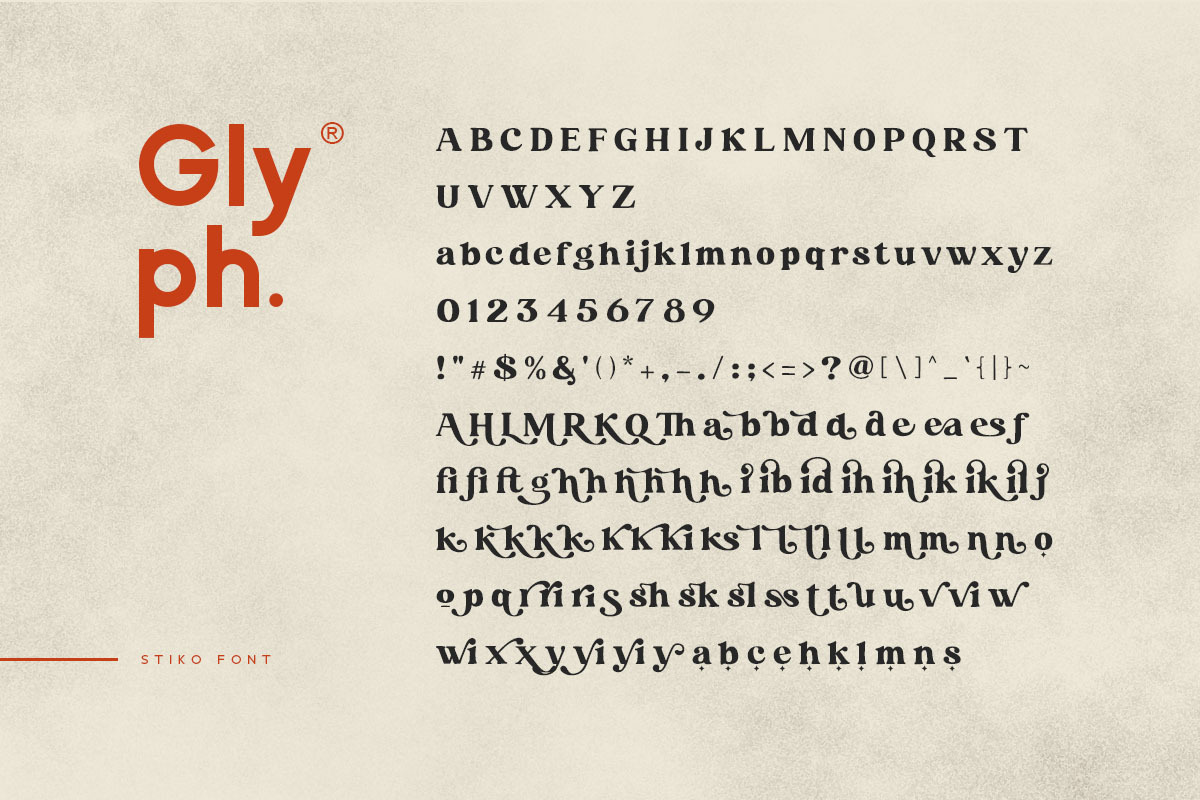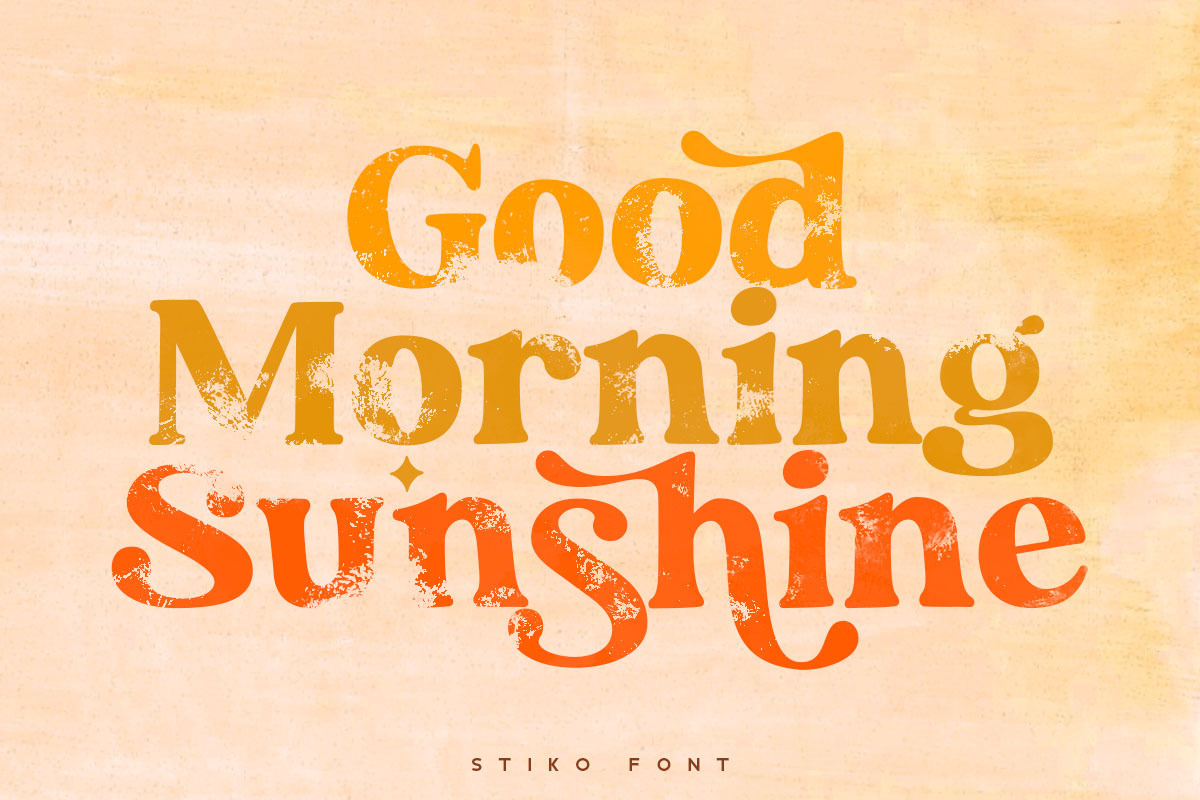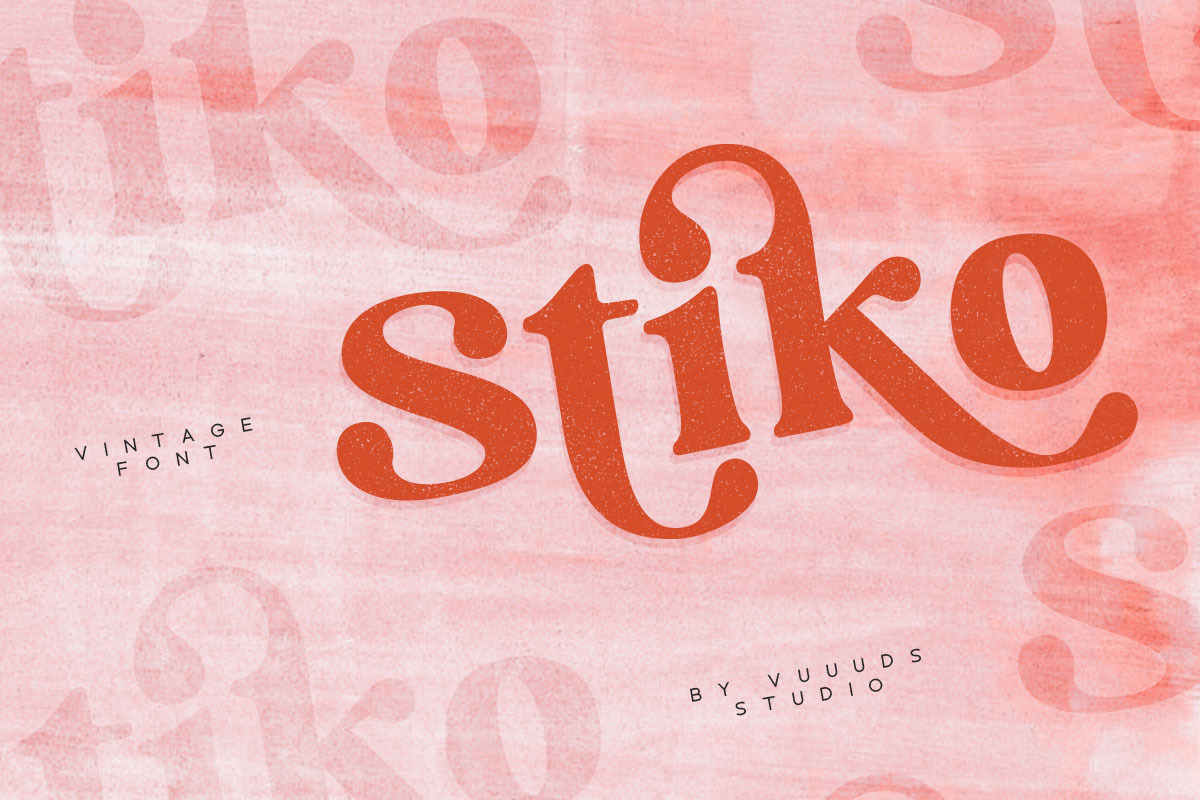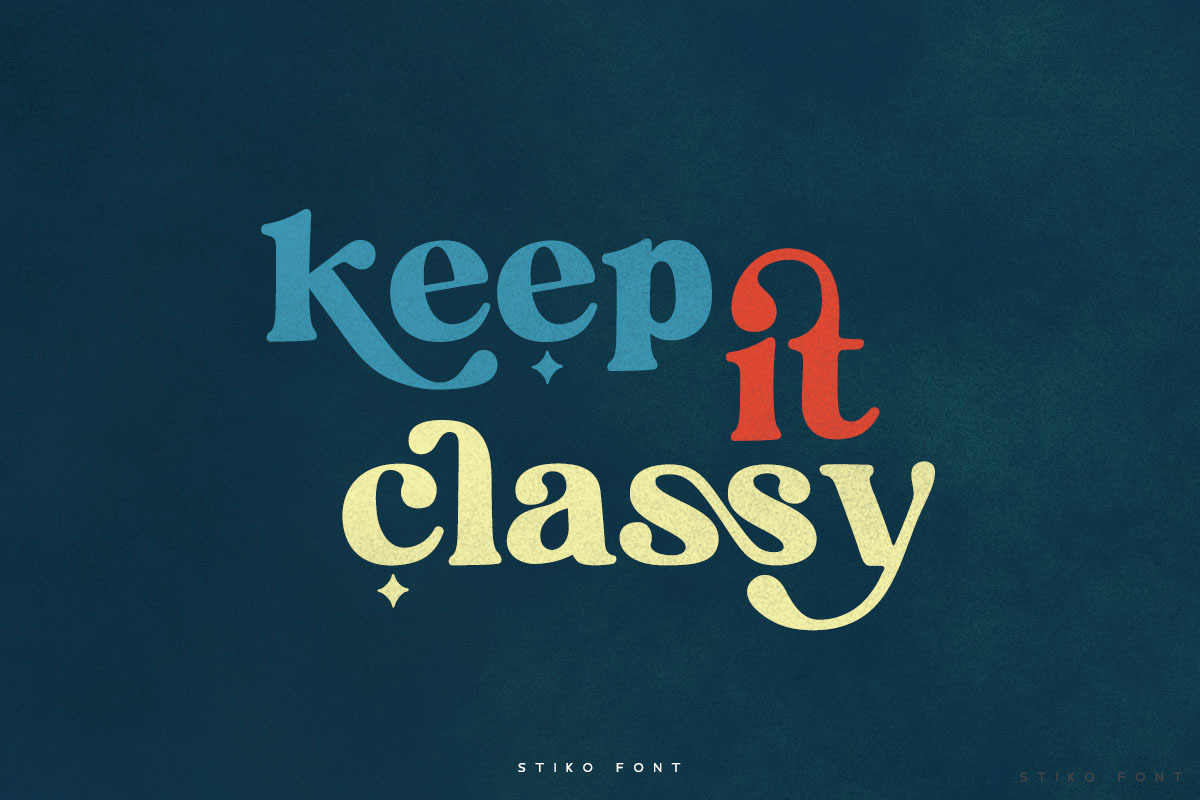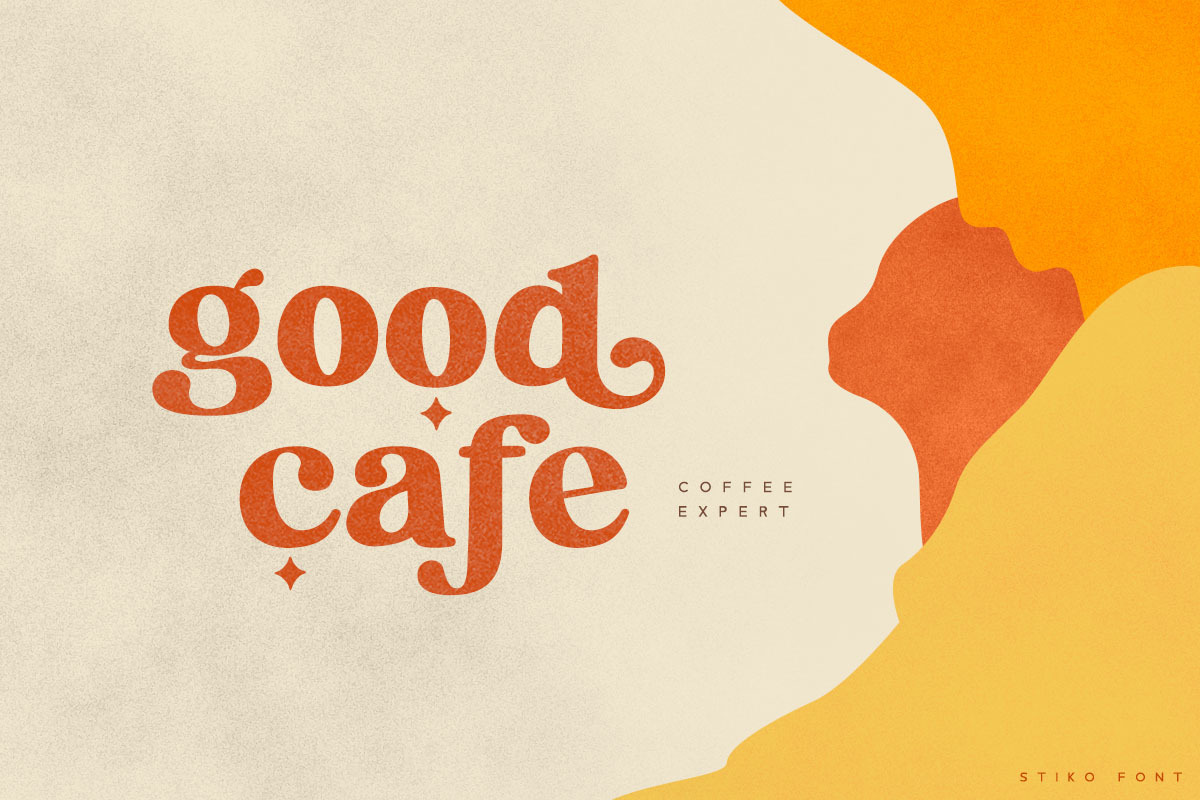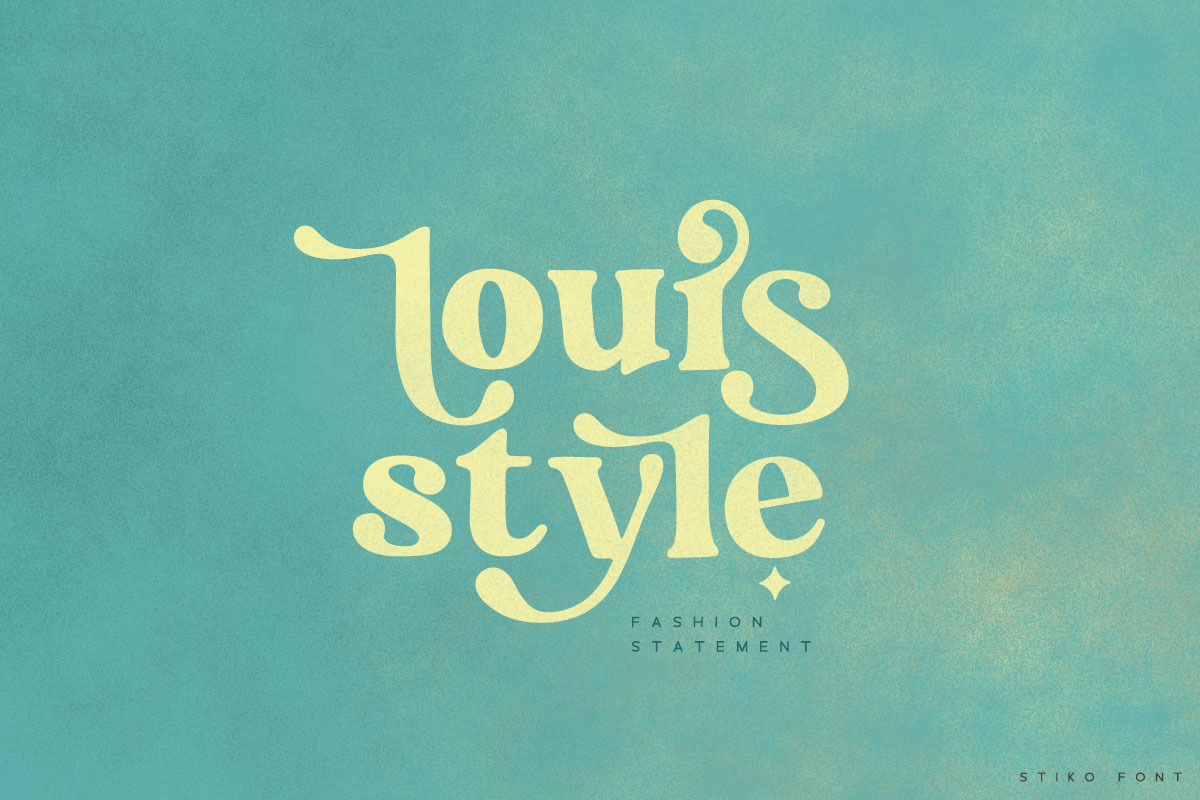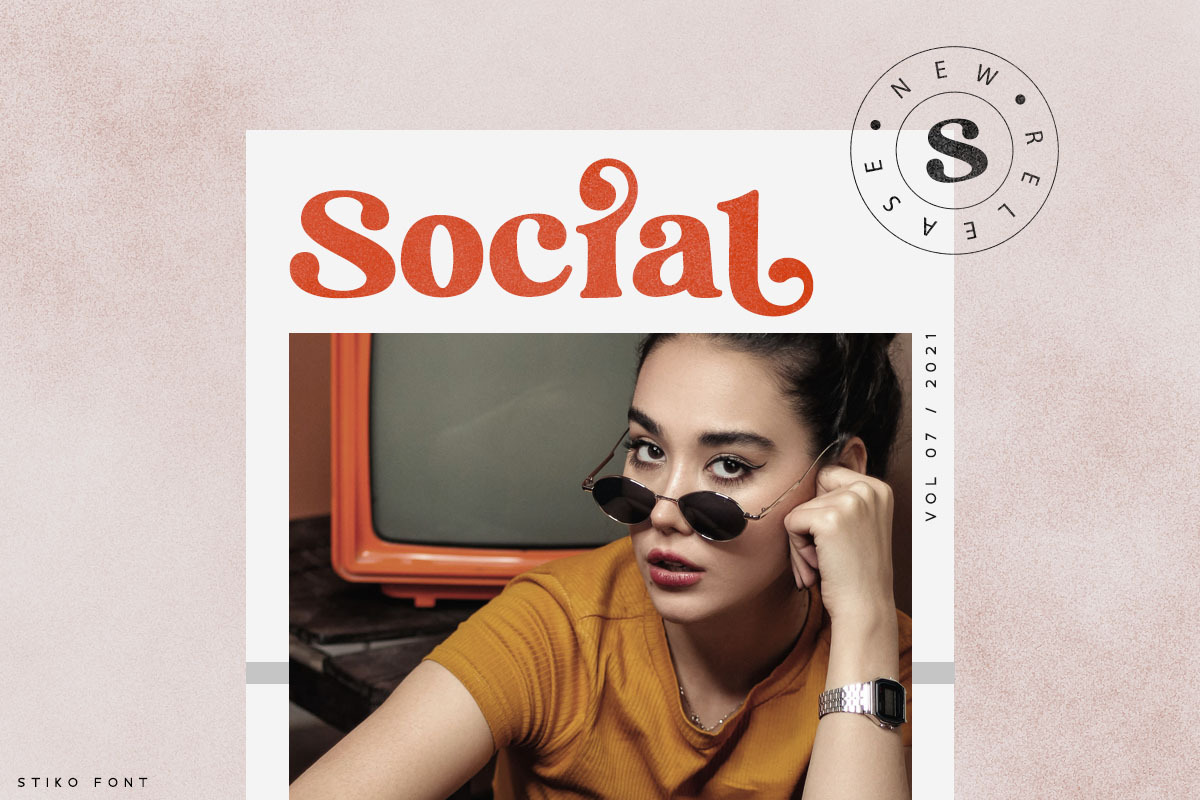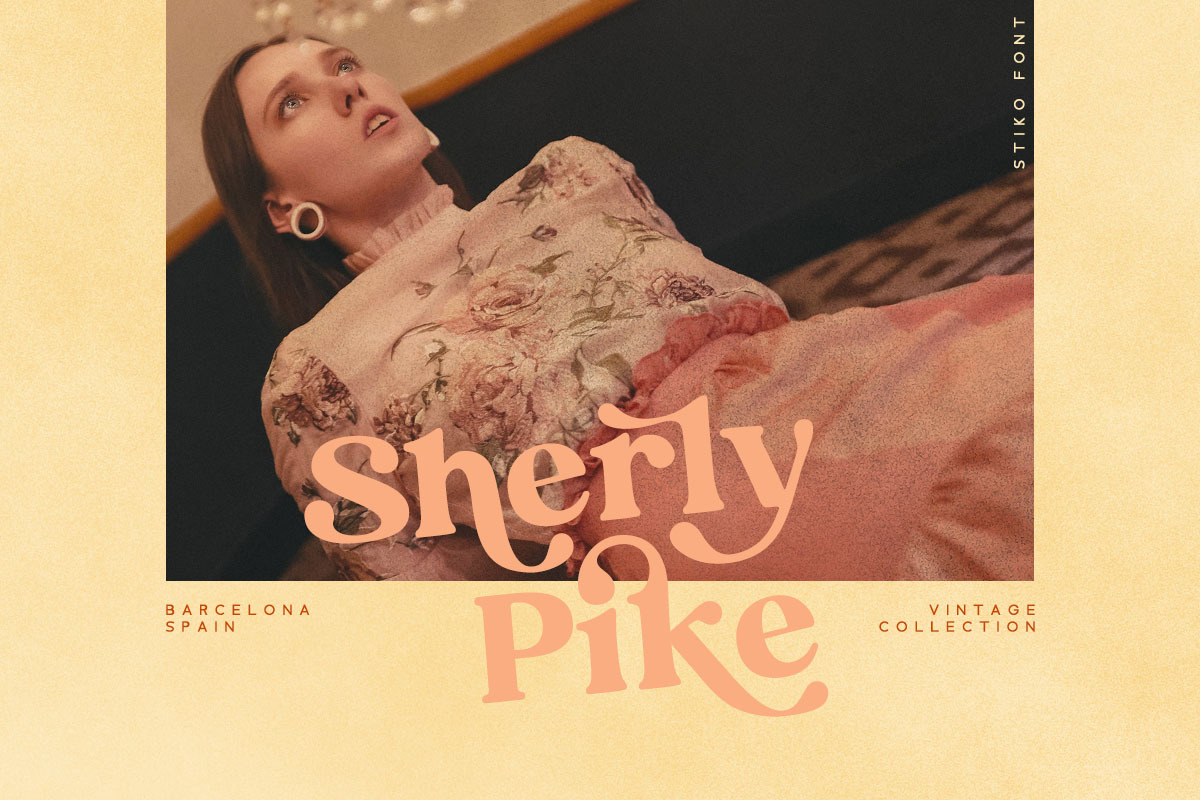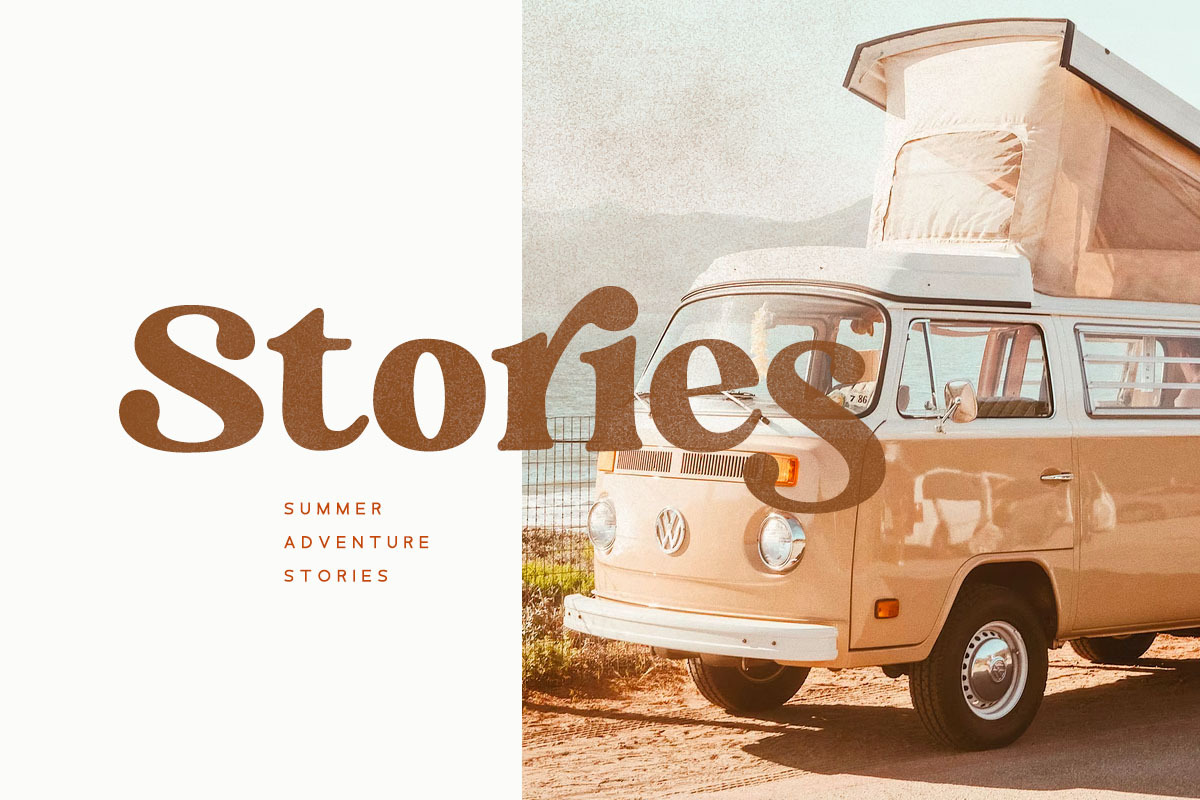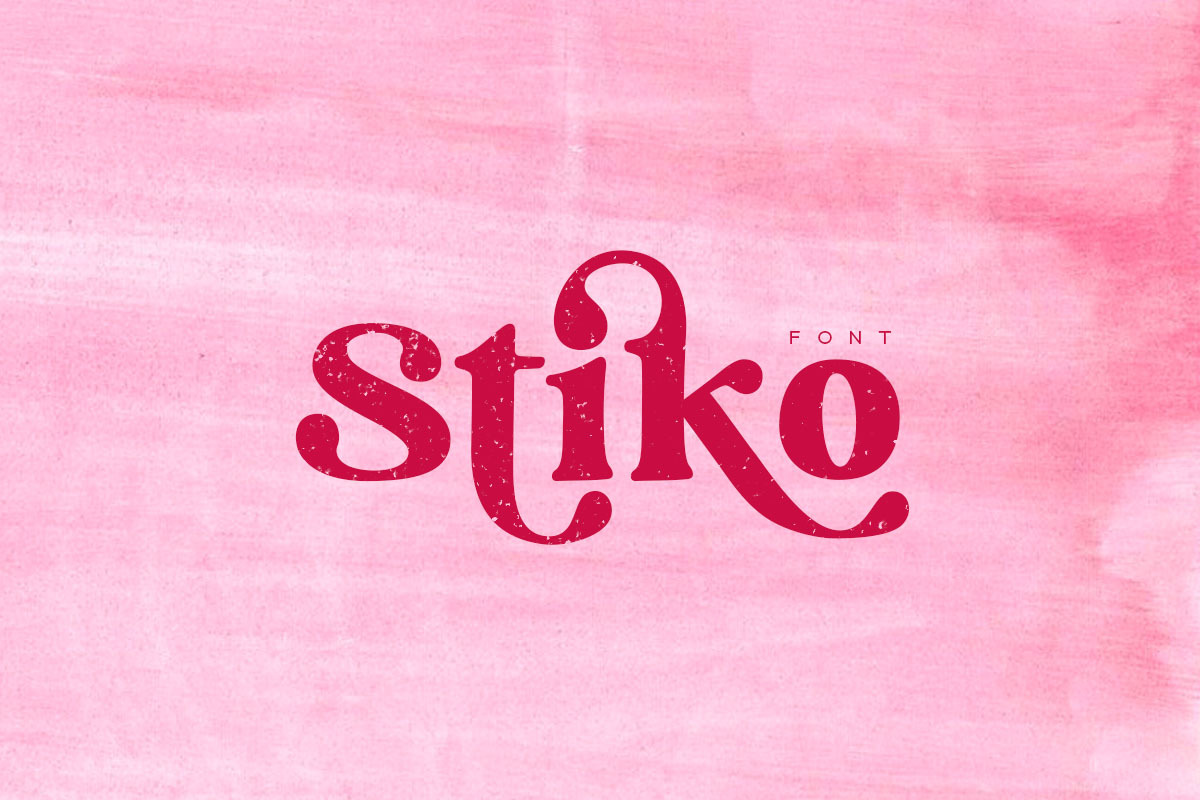
Stiko Vintage Font
Introducing Stiko Font!
Stiko is vintage serif looks font, every single letters have been carefully crafted to make your text looks unique.
Foreign languages support: ÀÁÂÃÄÅÆÇÈÉÊËÌÍÎÏÐÑÒÓÔÕÖØÙÚÛÜÝßàáâãäåæçèéêëìíîïðñòóôõöøùúûüýÿ